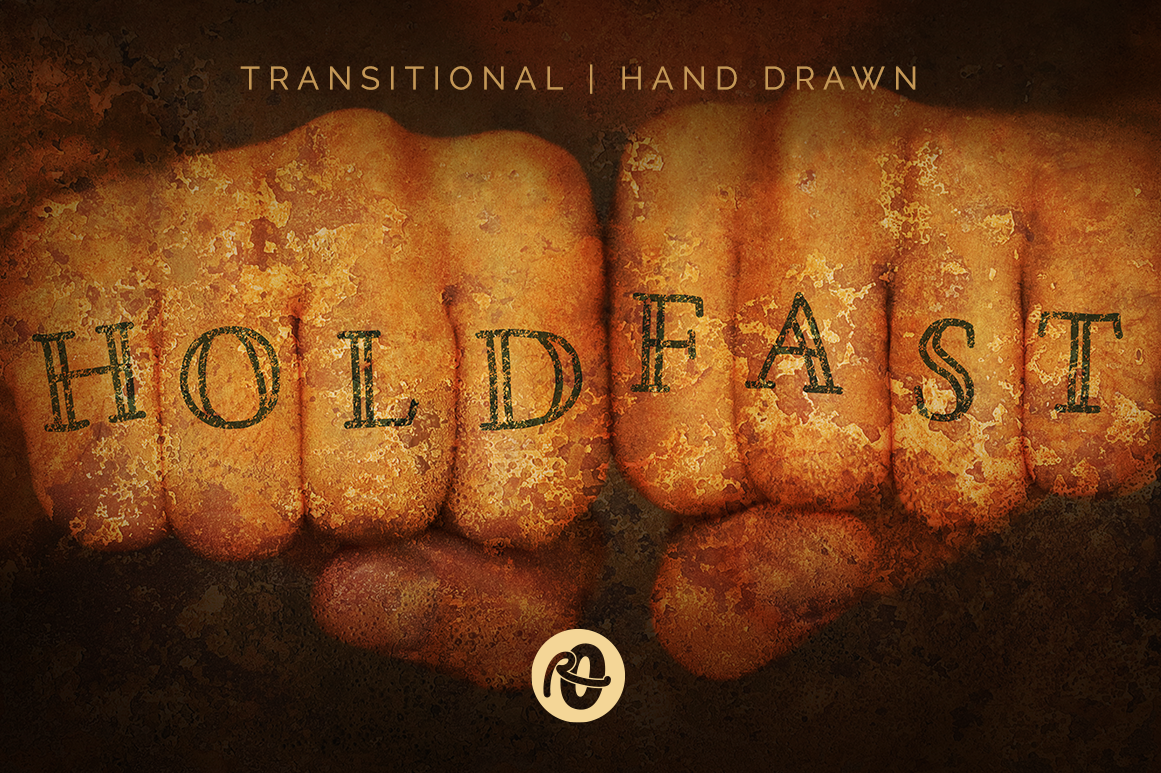
Hold Fast: hand drawn font
Hold Fast is a hand drawn, transitional typeface in a very rough and rustic style. It's best used for headlines, branding & packaging, and editorial design as well as creating digital illustrations.